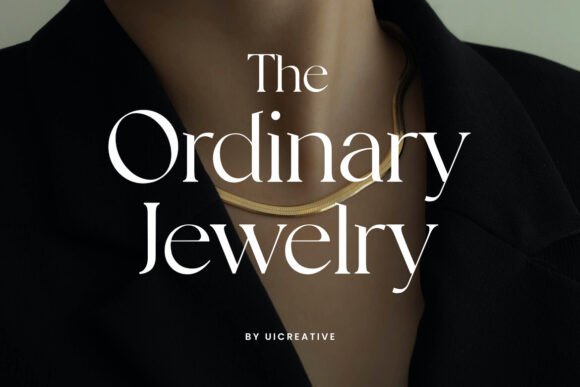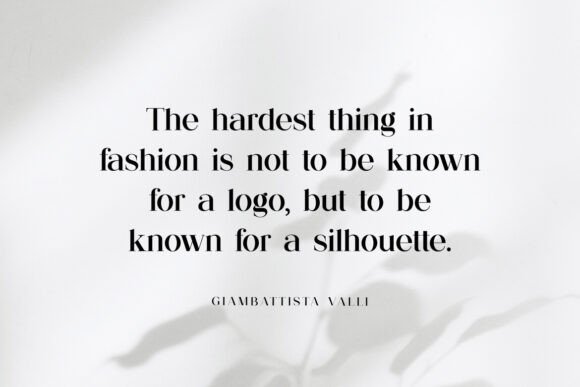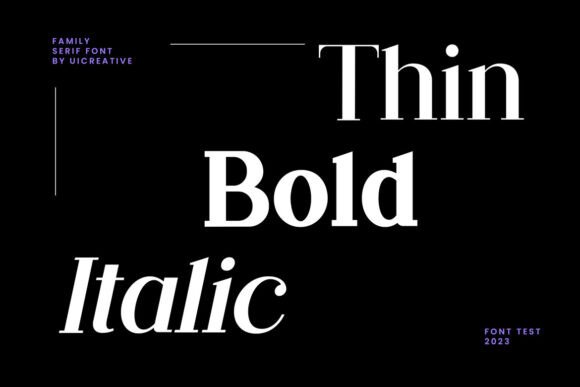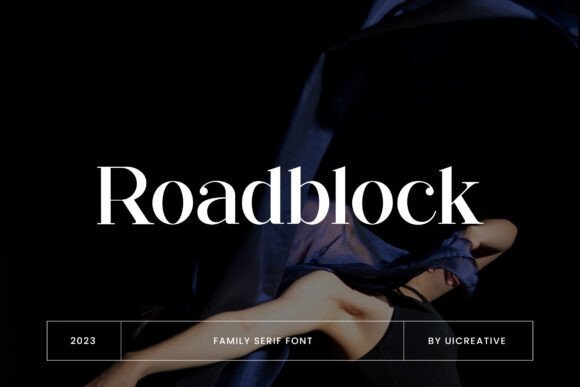
Introduction to Roadblock Font
Roadblock Modern Serif Family Font.
The modern display font feels beautiful classy, elegant, and stylish This font is ideally suited for a wide variety of projects, such as signature, stationery, logo, wedding, typography quotes, magazine or book covers, website headers, branding, and more.
Key Features of Roadblock Font
Why Choose Roadblock Font?